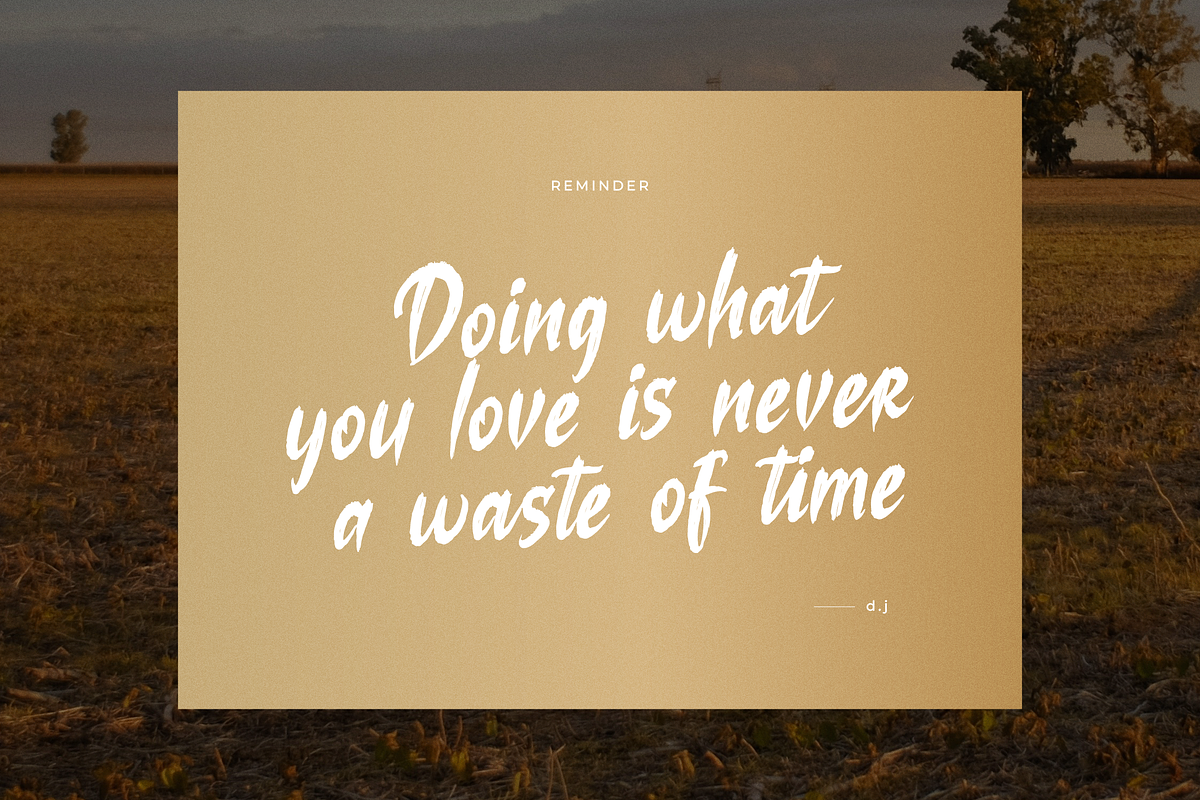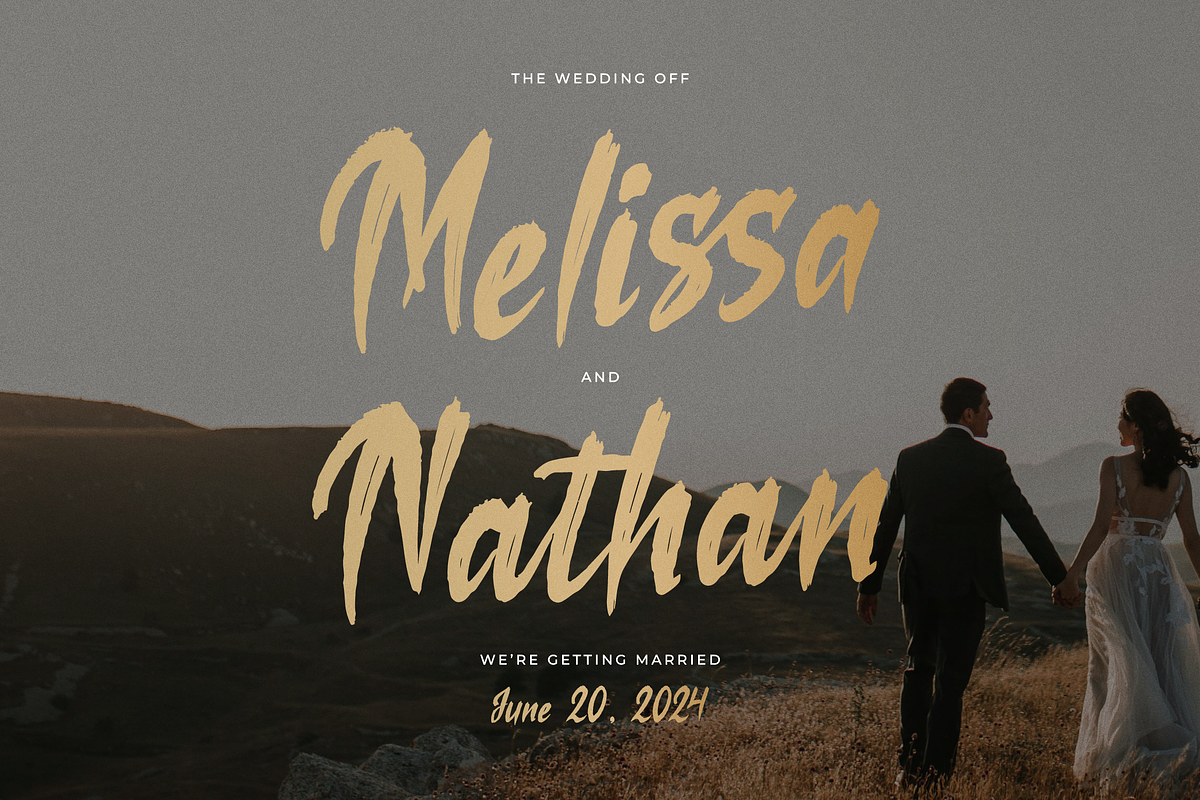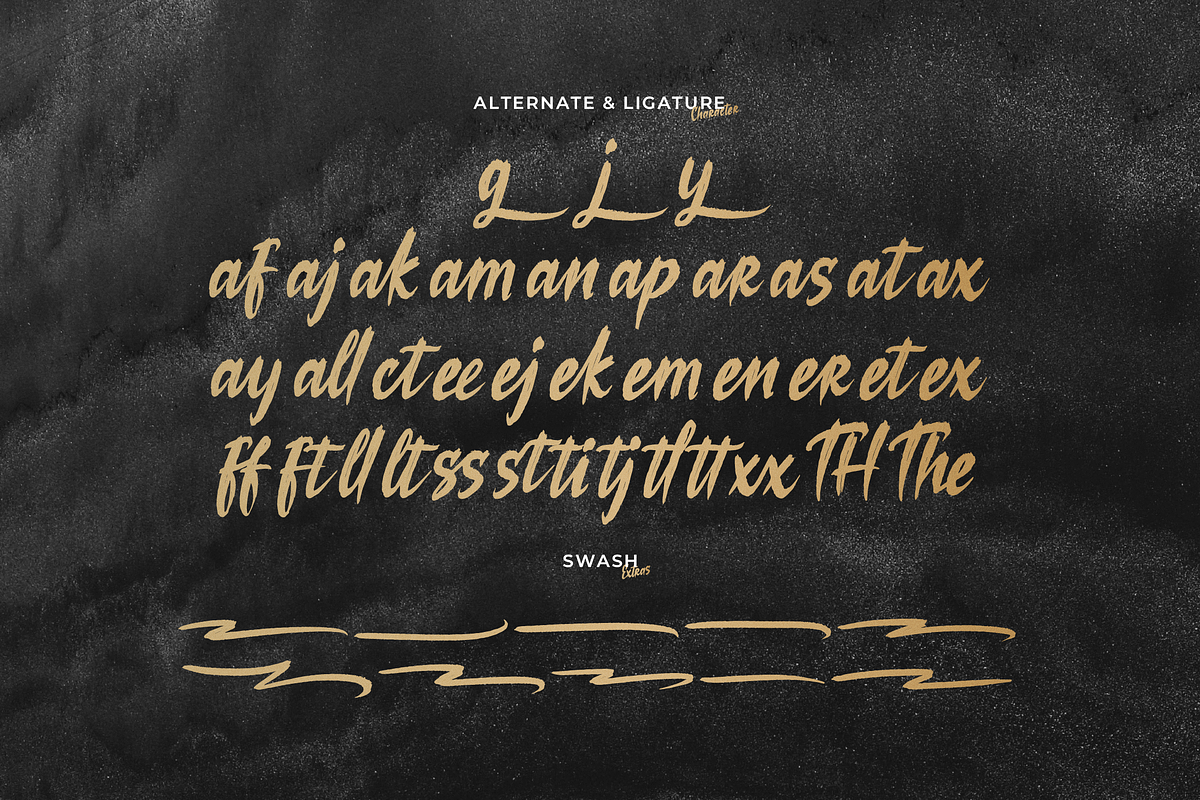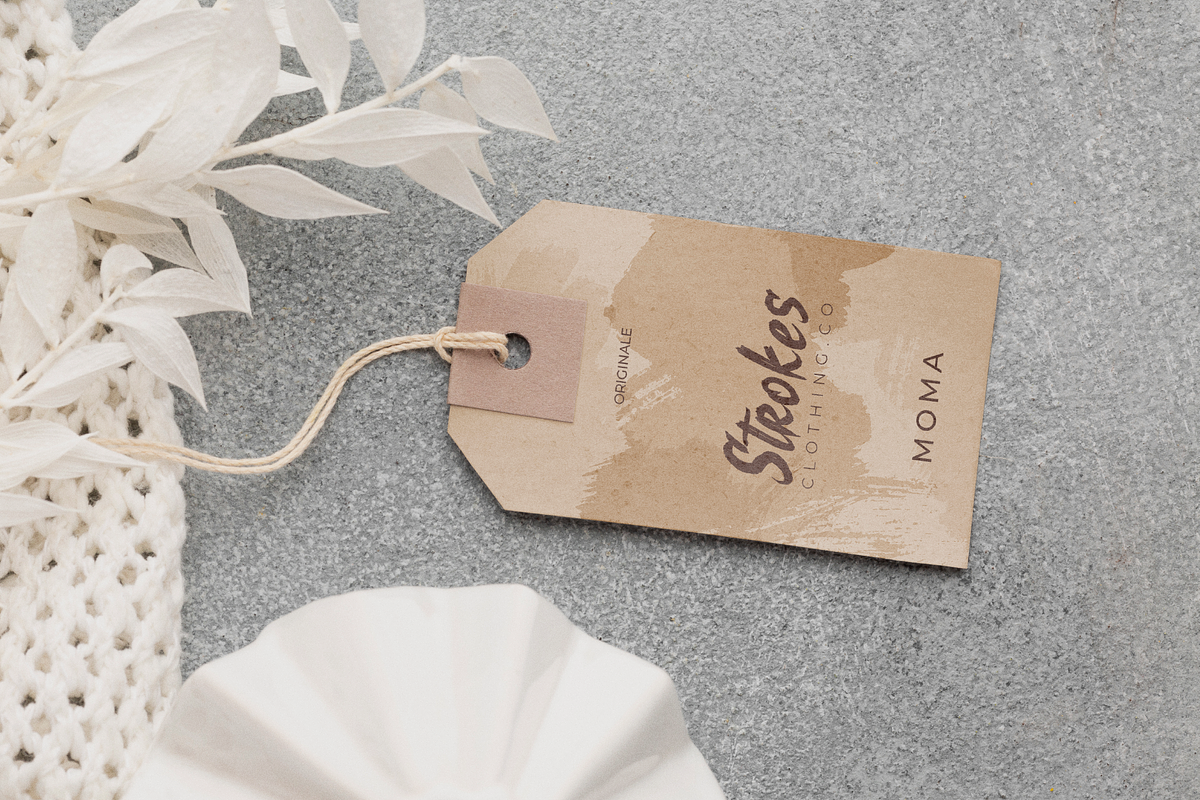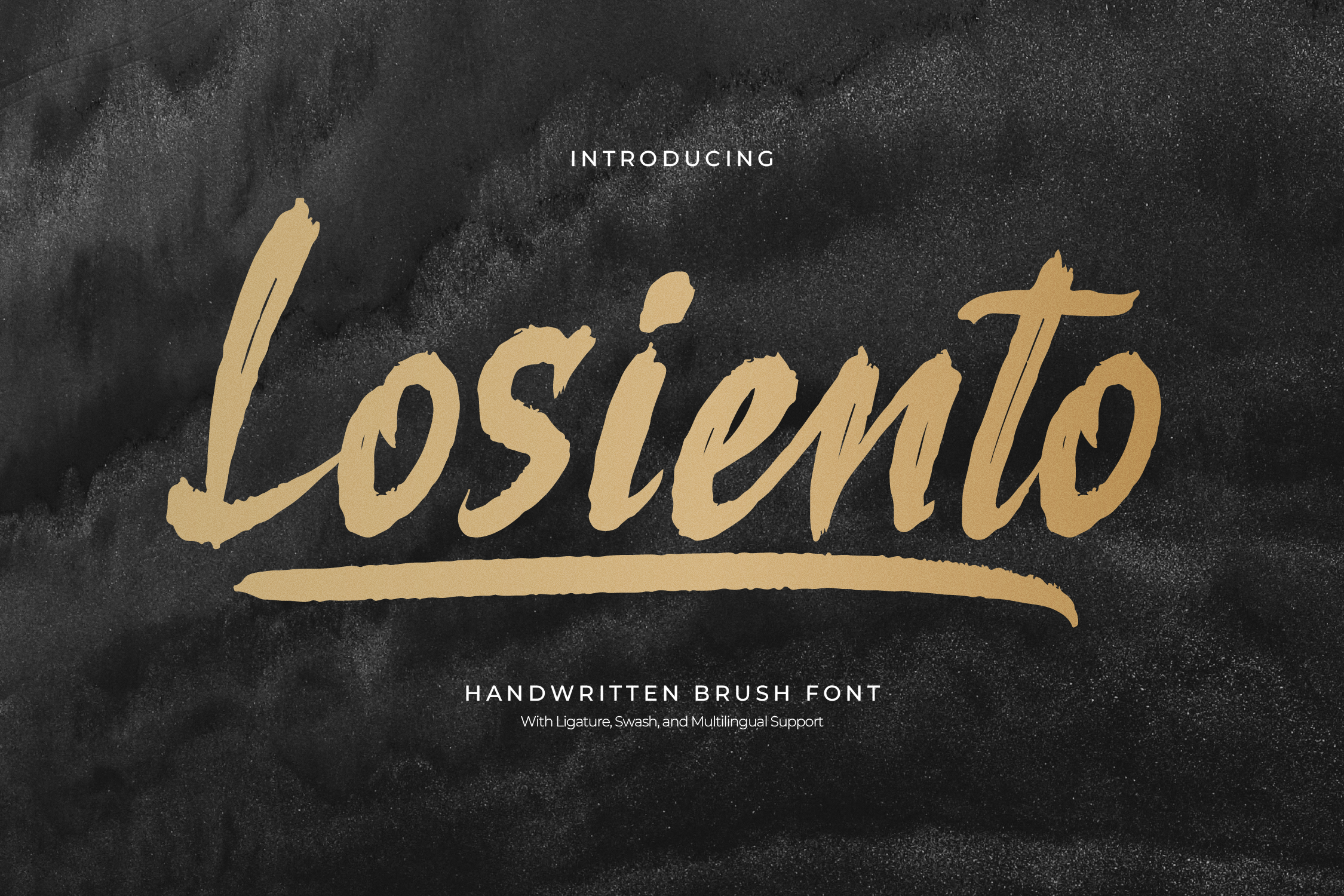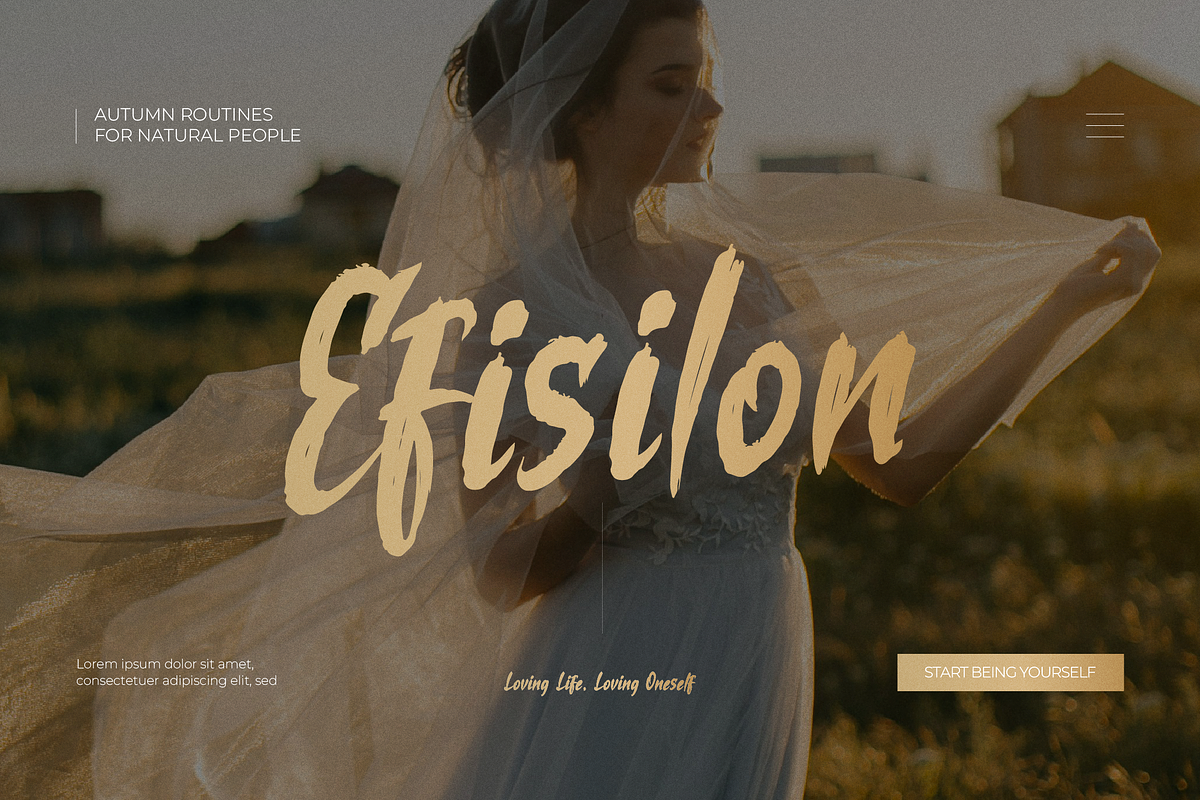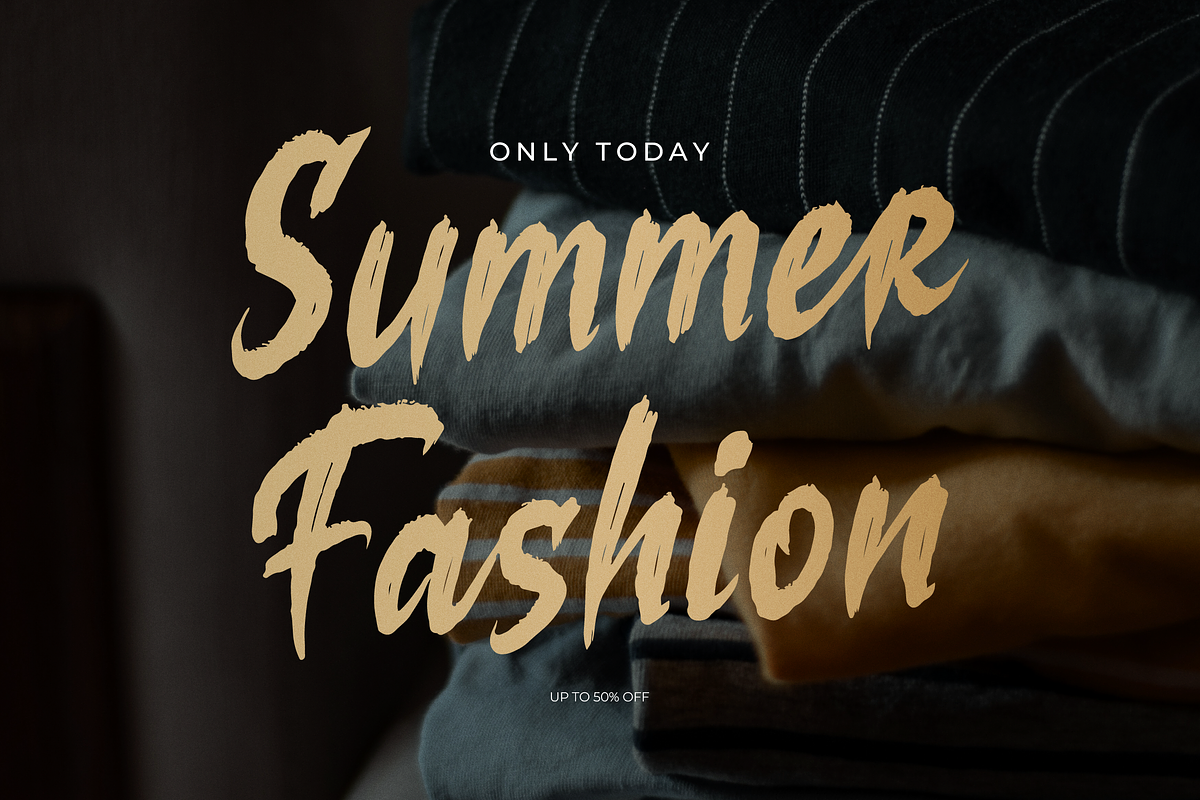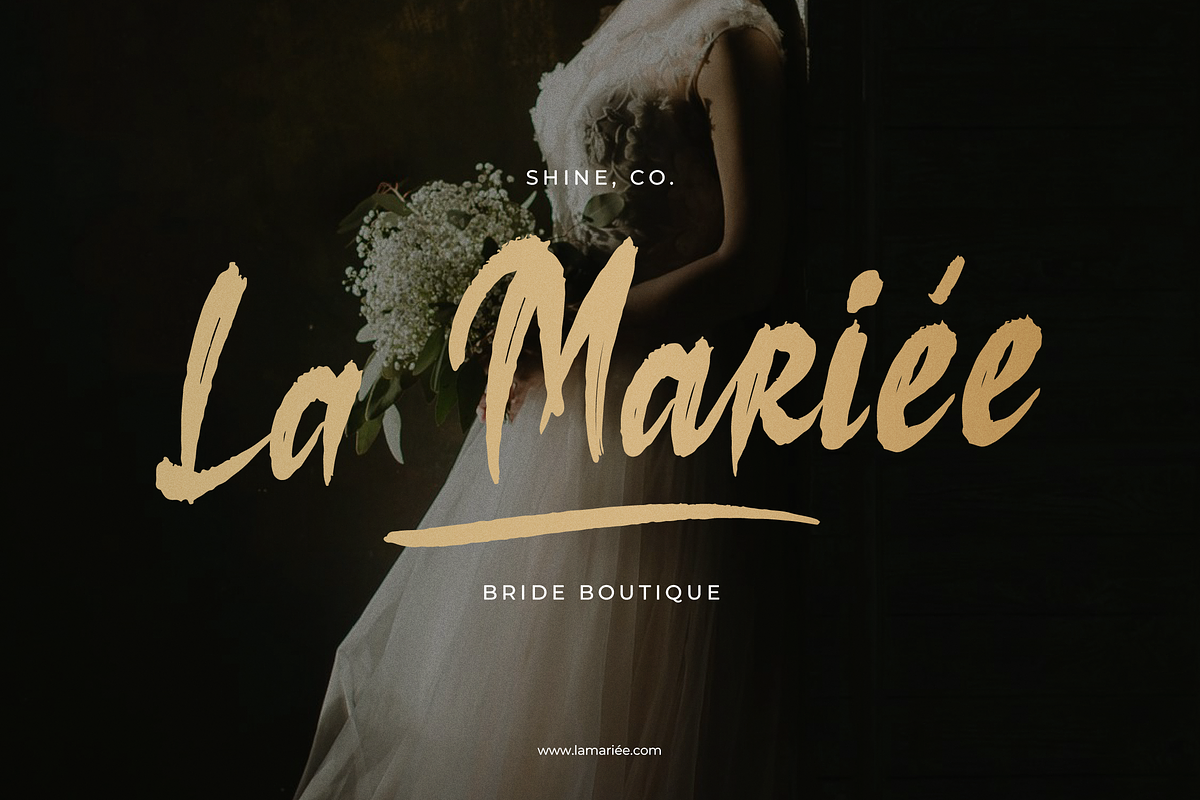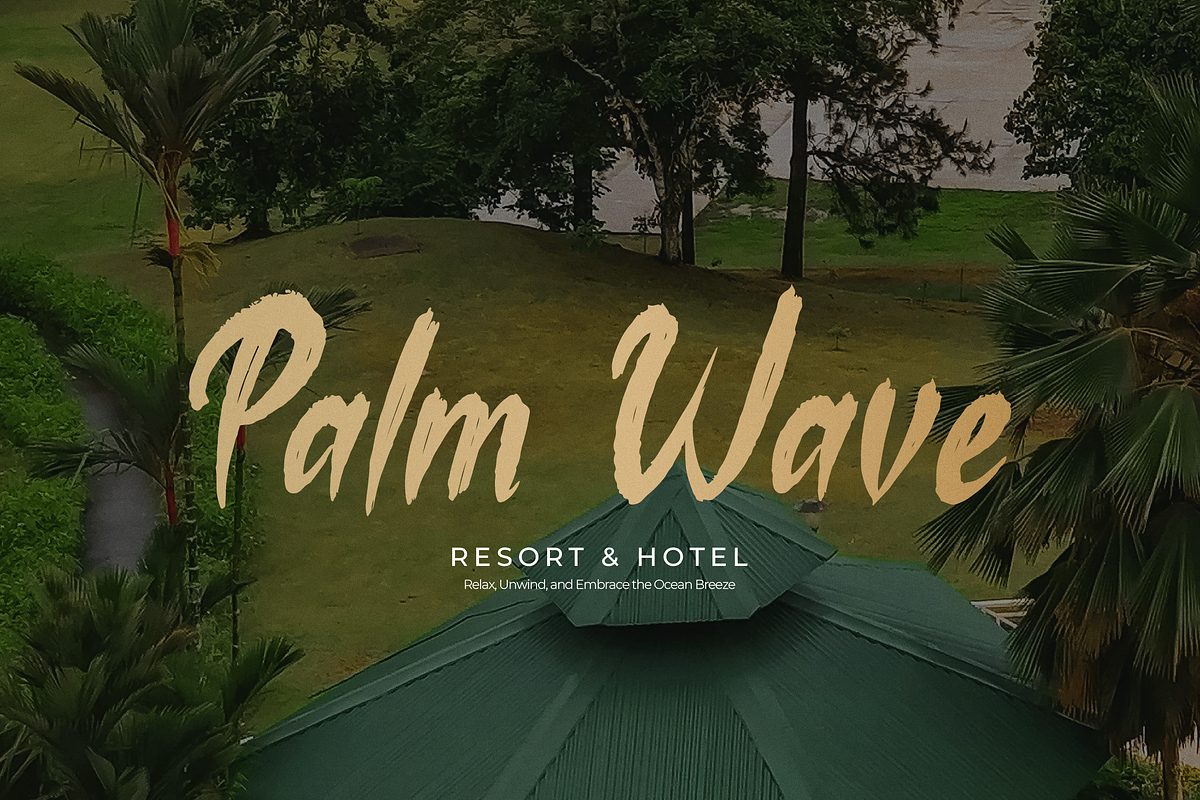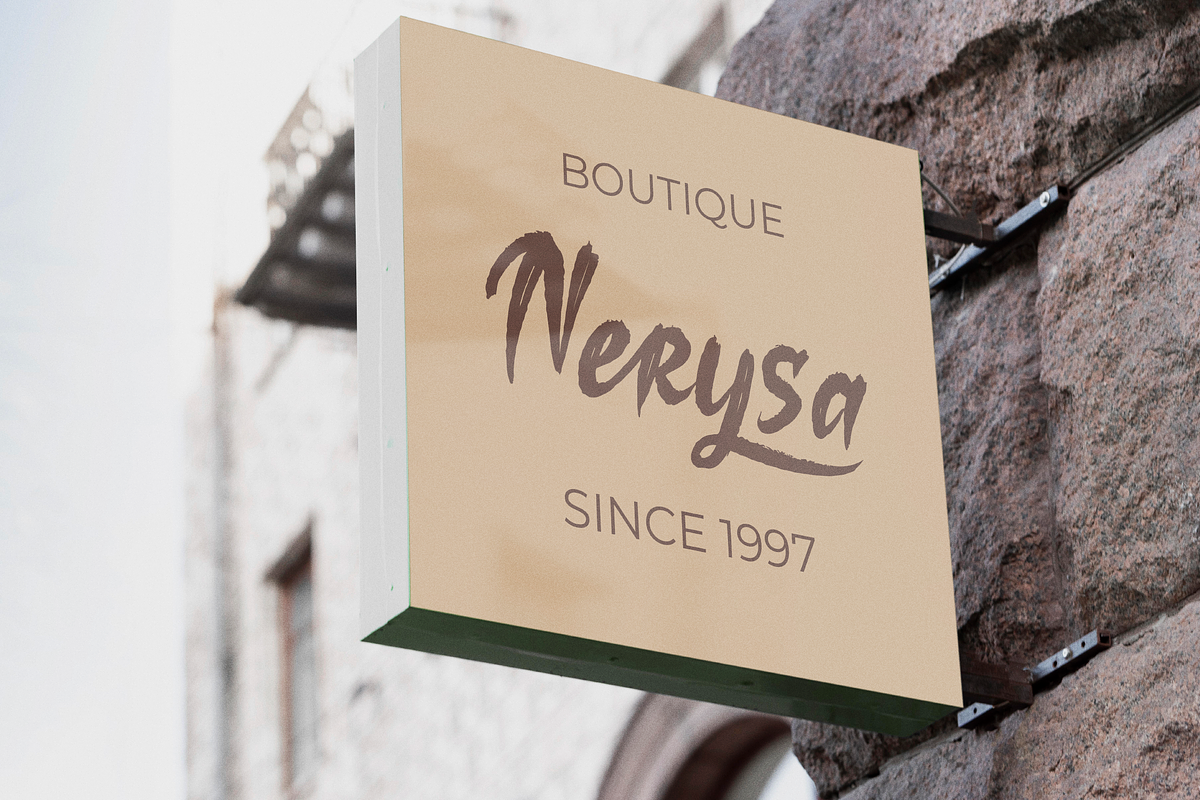
Losiento | Brush Handwritten Font
Losiento | Brush Handwritten Font, from Denustudios, suitable for any projects such as: logos, branding projects, homeware designs, product packaging, mugs, quotes, posters, shopping bags, t-shirts, book covers, name card, invitation cards, greeting cards, label, photography, watermark, special events, and all your other lovely projects that need a Brush Handwritten Font taste.